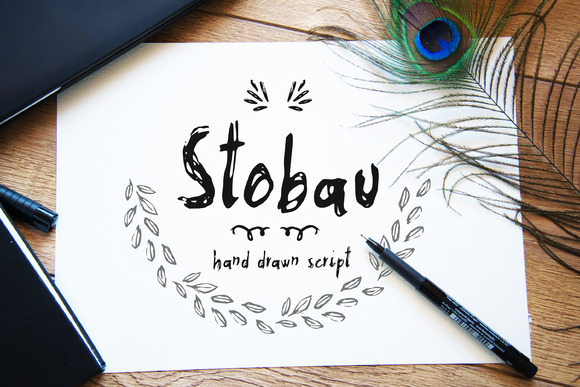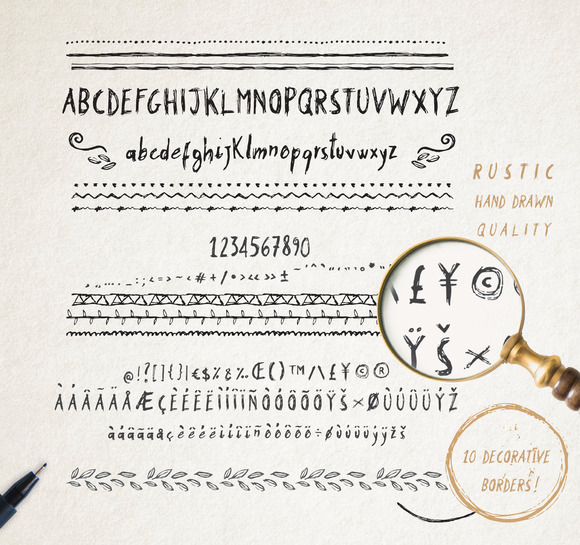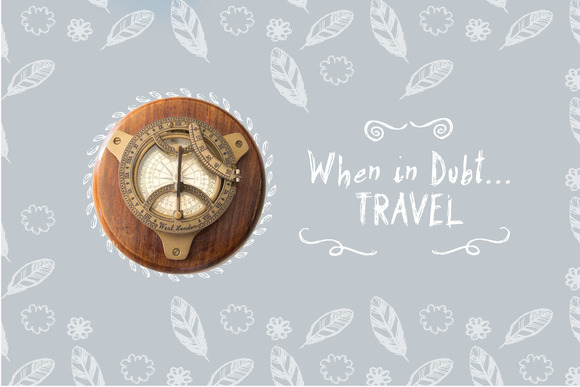
Stobau Font
About Stobau Font
Stobau is a rustic font with a modern twist.
The Stobau font has a irregular baseline and due to the hand drawn quality this is a font packed with character and personality.